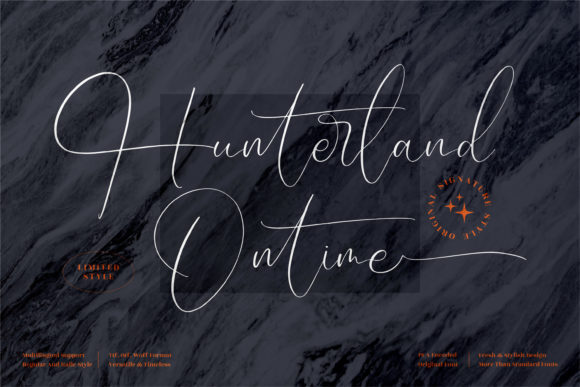
Hunterland Ontime Font
Hunterland Ontime is a thin lettered and graceful script font. Fall for its ravishing style and use it to create gorgeous designs! Hunterland Ontime is PUA encoded which means you can access all glyphs and swashes with ease!